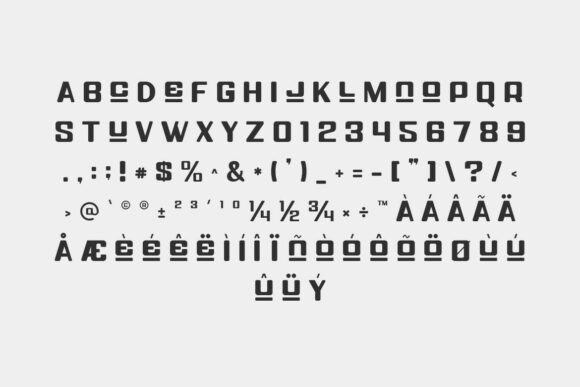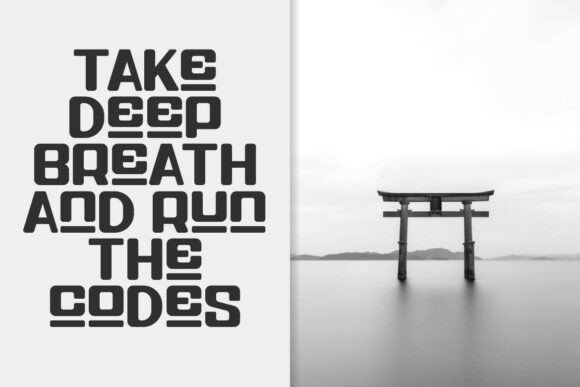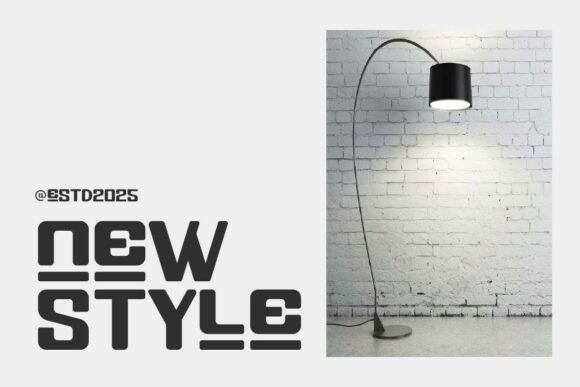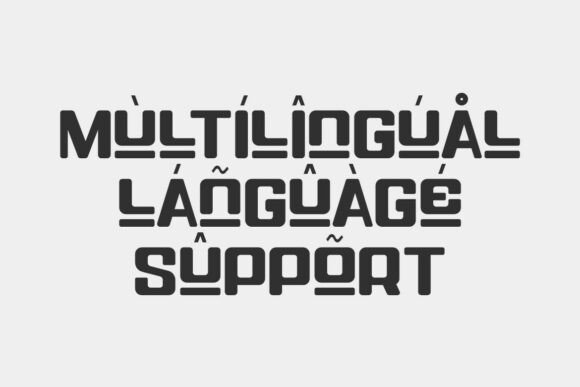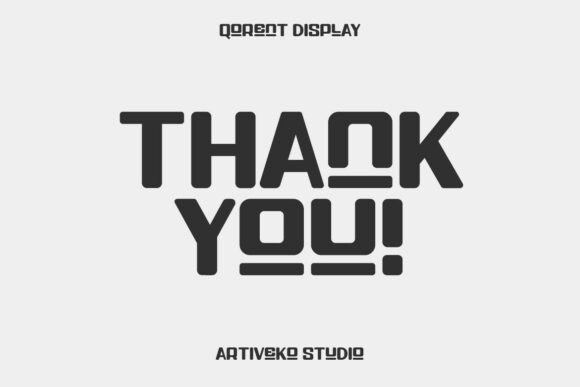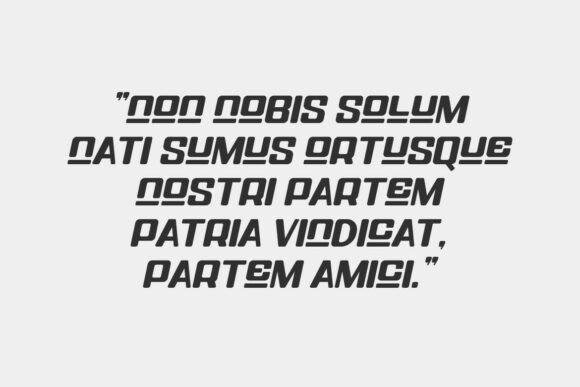
Introduction to Qorent Font Font
Fonts play a crucial role in design, and the Qorent Font font is a typeface that brings both character and versatility to any project. Whether you’re working on a branding project, a website, or a print design, the Qorent Font font offers a unique style that can elevate your work.
Qorent is a modern sans display font that blends creativity with clean design.
Featuring bold shapes, distinct curves, and sharp details, Qorent brings a fresh personality to your typography while maintaining excellent readability Perfect for logos, branding, headlines, posters, packaging, and social media graphics, Qorent adds a confident and artistic touch to any visual project.
Key Features of Qorent Font Font
Why Choose Qorent Font Font?
The Qorent Font font is more than just a typeface – it’s a design tool that helps you communicate your message with style and clarity. Its unique character set and versatile design make it suitable for a wide range of applications, from elegant invitations to bold headlines.
With its carefully crafted letterforms and balanced proportions, the Qorent Font font ensures readability and visual appeal across all mediums.
What makes Qorent Font font special?
The Qorent Font font stands out with its unique design, exceptional readability, and versatility across various design applications.